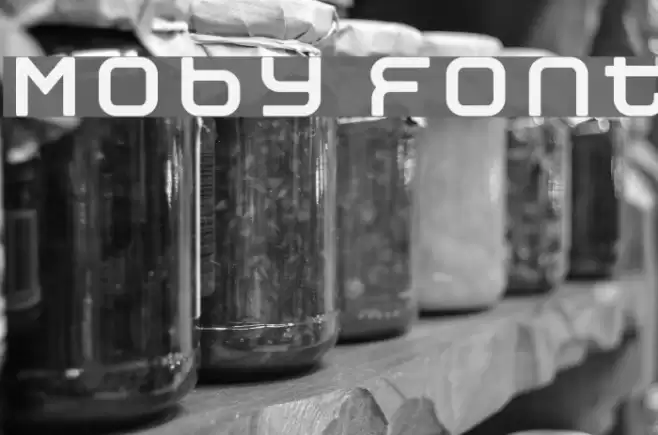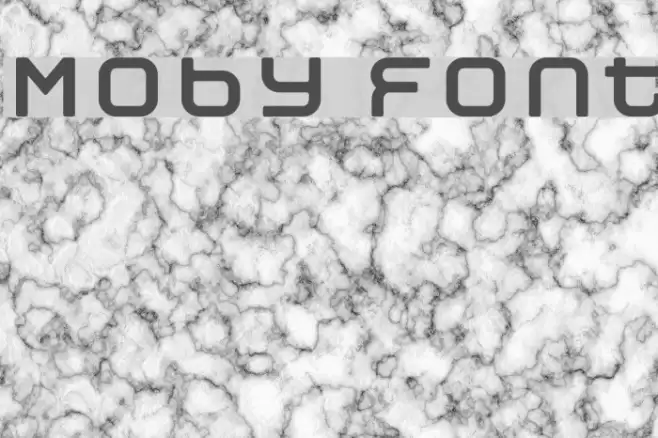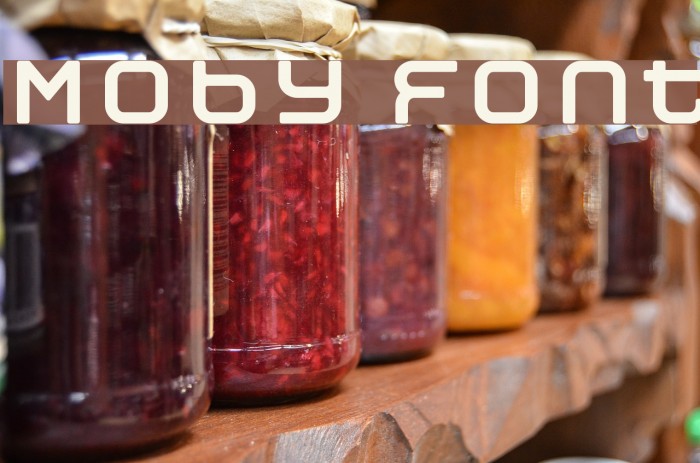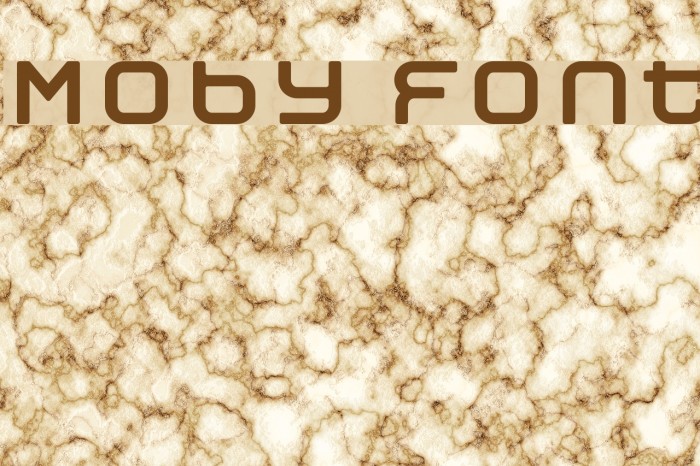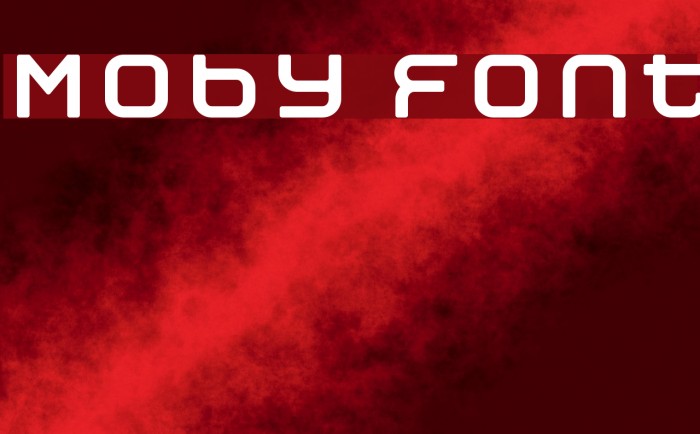
Moby Font
Moby Description
This font features a modern, geometric design with rounded edges and a clean, minimalist aesthetic. The characters are uniform in width, giving it a monospaced appearance, yet they maintain a distinct style that is both futuristic and approachable. The uppercase and lowercase letters share similar proportions, enhancing readability. The numerals and special characters are designed to match the overall style, ensuring consistency across all text elements. The font's simplicity and clarity make it suitable for a variety of applications, from digital interfaces to print media.
A modern, geometric font with rounded edges and a minimalist design.
- Proposed Projects: Ideal for tech branding, digital interfaces, app design, and modern print media.